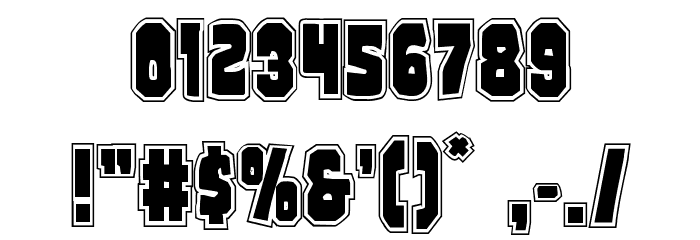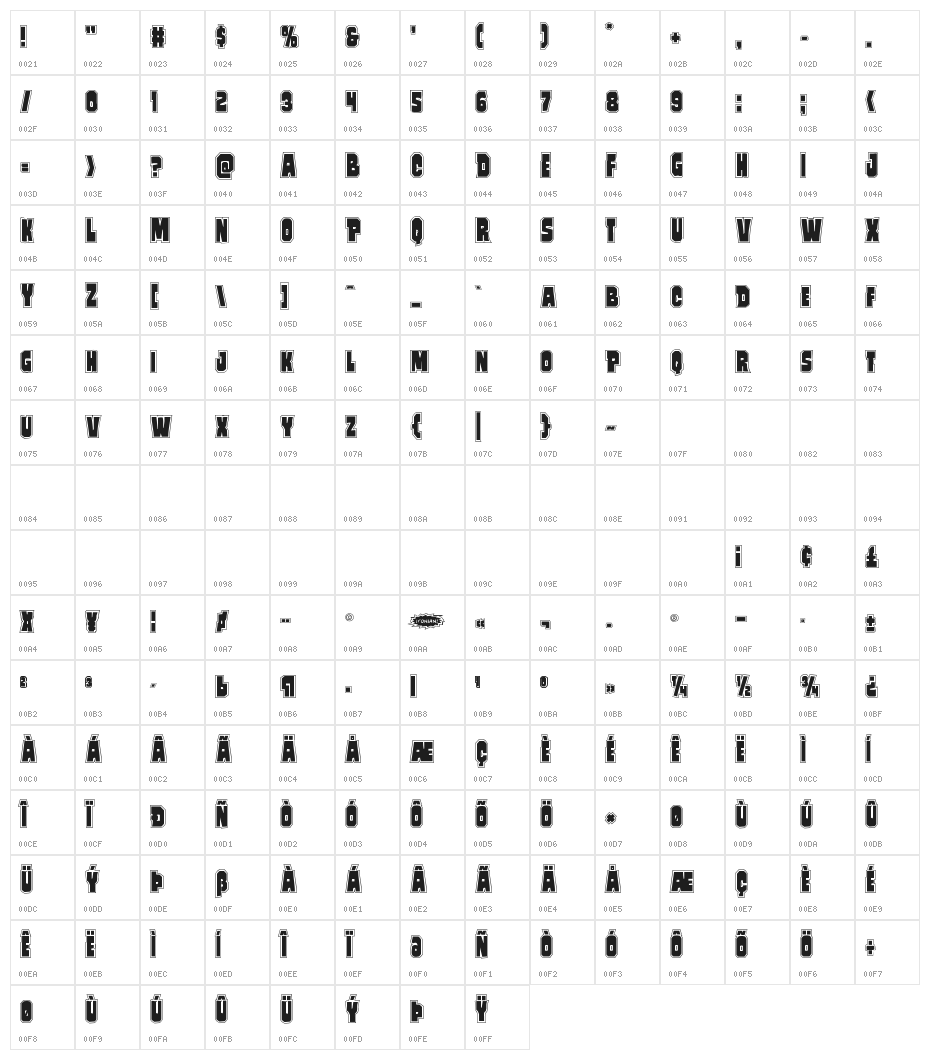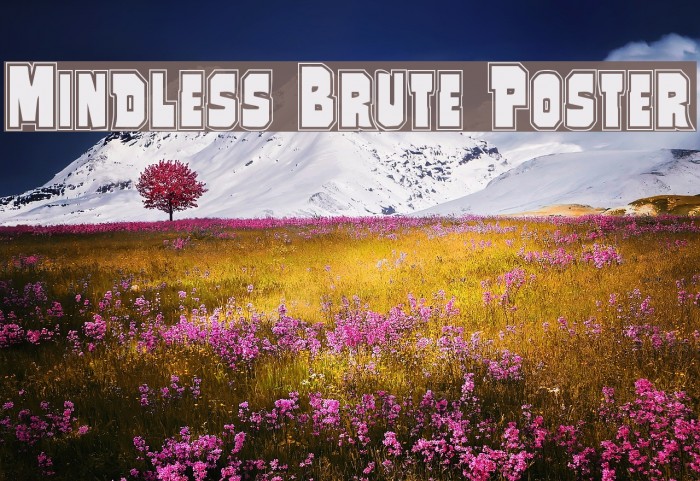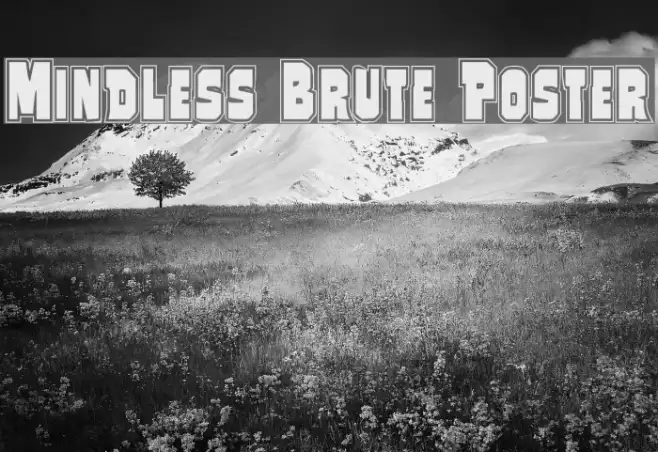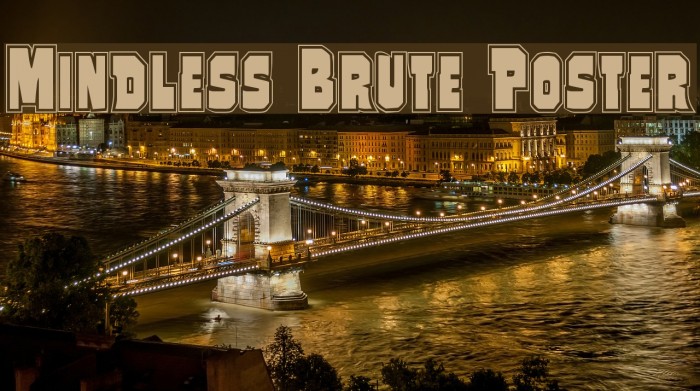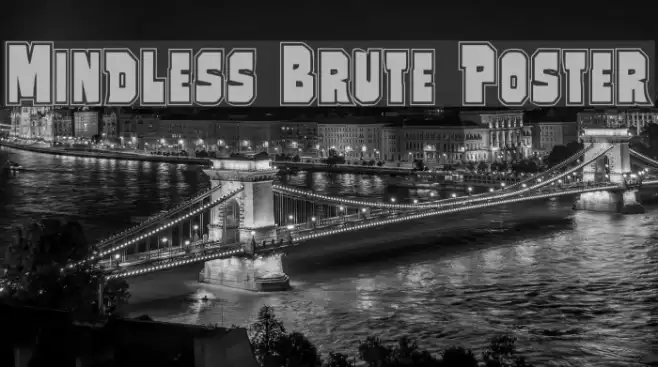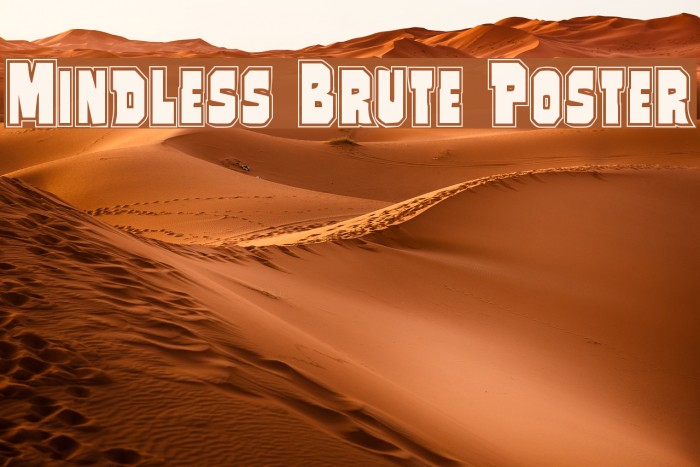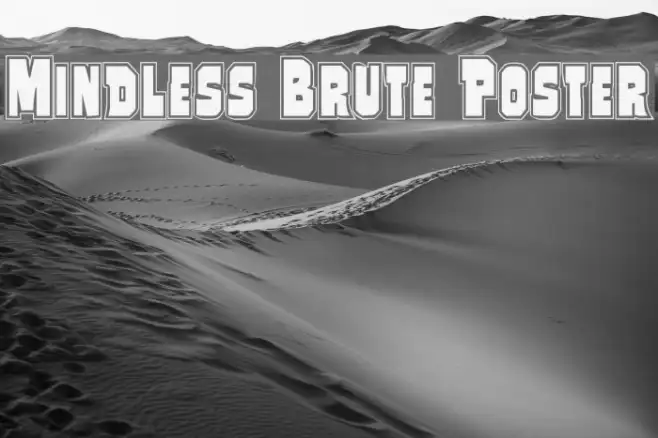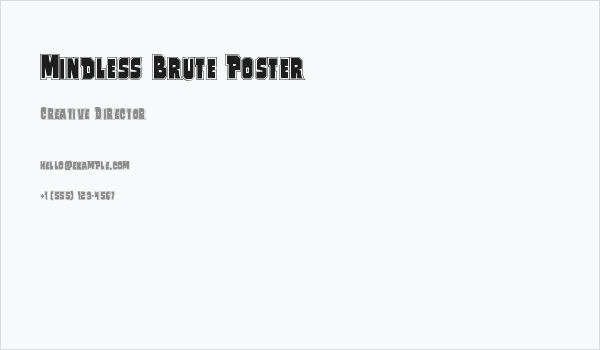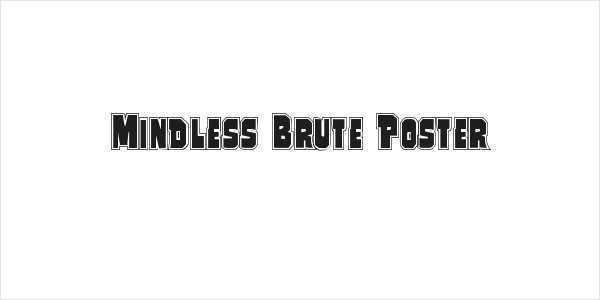
Mindless Brute Poster Font
Mindless Brute Poster Description
This font features a bold, impactful design with a strong presence. The characters are outlined with a thick black border, creating a striking contrast against the white interior. The style is reminiscent of vintage poster fonts, with a blocky and robust appearance. Each letter is distinct and easily recognizable, making it suitable for attention-grabbing headlines. The numbers and special characters maintain the same bold aesthetic, ensuring consistency across all elements.
| Proposed Projects | Ideal for posters, banners, and any design requiring a bold statement. Suitable for branding, advertisements, and event promotions. |